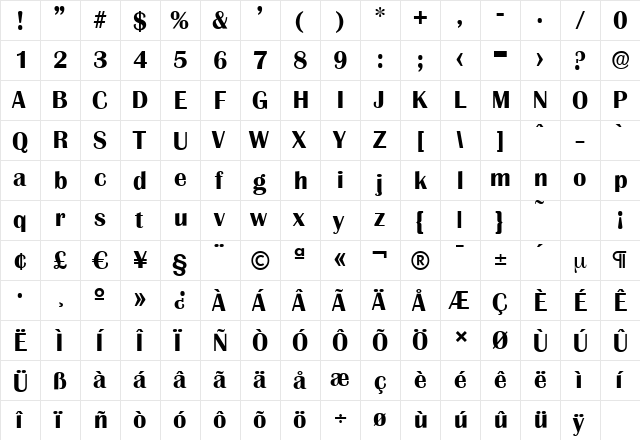
GrenobleSerial Bold
Design Context for GrenobleSerial Typeface
GrenobleSerial takes a measured approach to typography — its balanced proportions and neutral character make it a reliable workhorse for both digital and print work. Its bold stroke weight gives it real presence on the page.